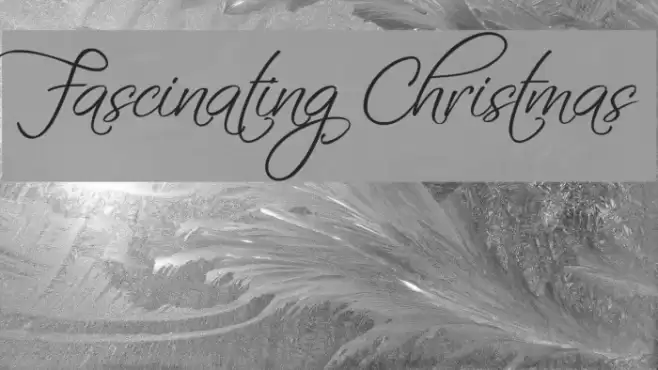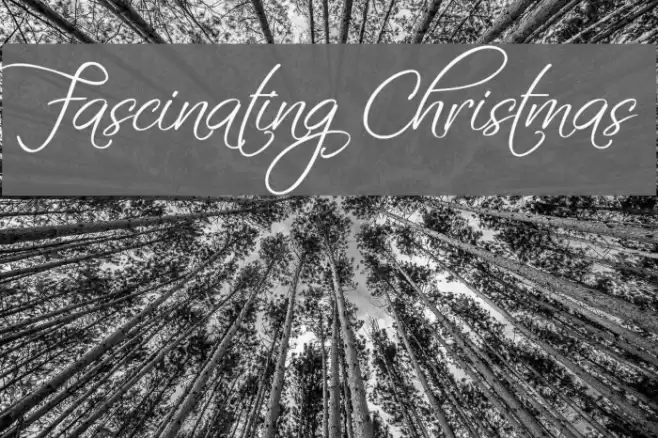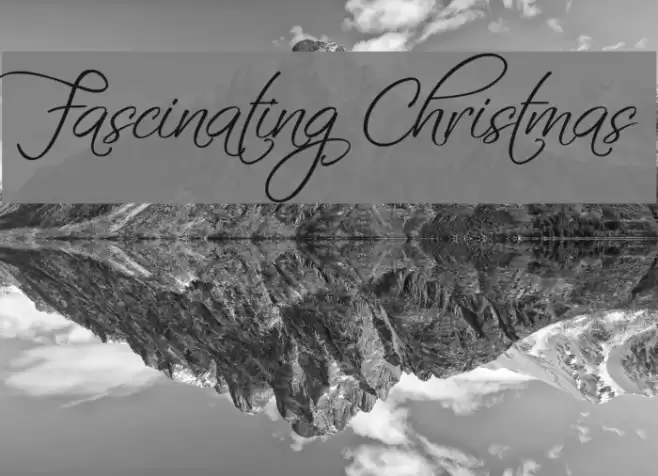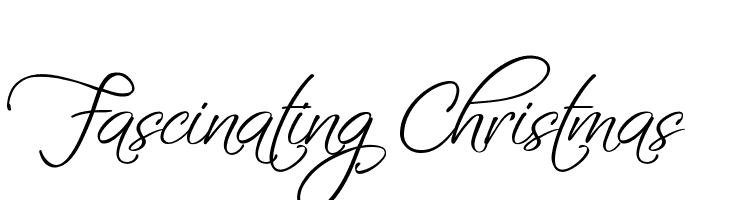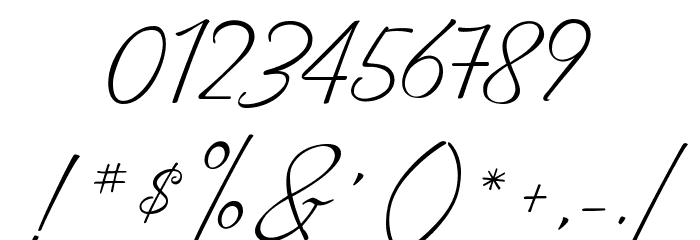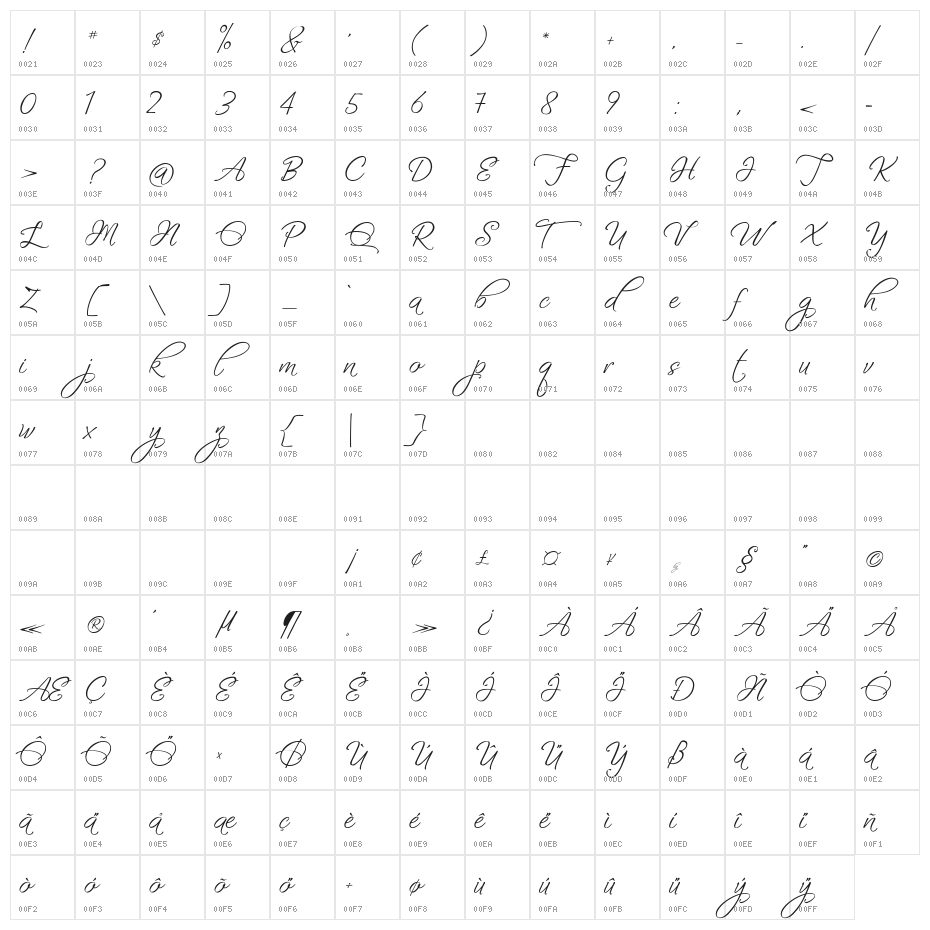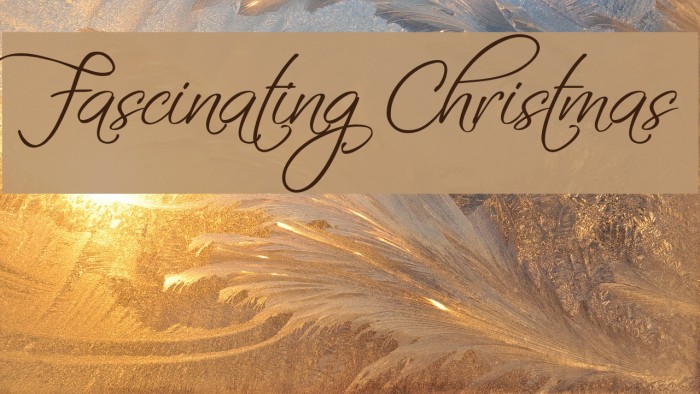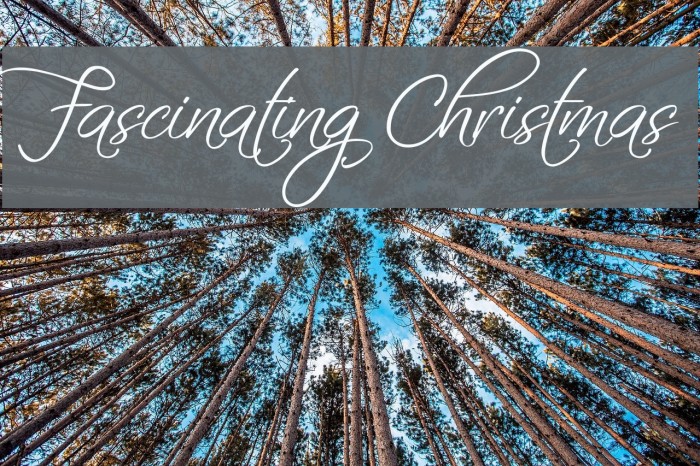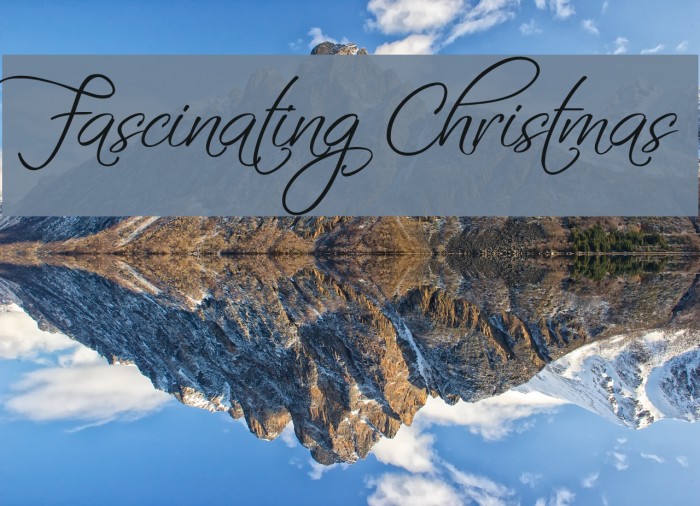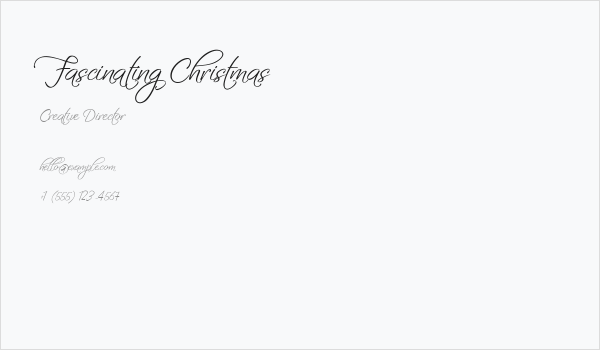
Fascinating Christmas Font
Fascinating Christmas Description
This elegant script font features flowing, cursive letters with a sophisticated flair. The uppercase letters are ornate, with sweeping ascenders and descenders that create a sense of movement and grace. The lowercase letters maintain a consistent style, complementing the uppercase with their own delicate curves and loops. The numerals are designed to match the overall aesthetic, with a slight slant and decorative elements. Special characters are included, each crafted with the same attention to detail, making this font versatile for various design needs. The overall appearance is both classic and festive, ideal for creating a warm, inviting atmosphere.
An elegant, flowing script font with ornate, cursive letters and a festive feel from Uncategorized fonts.
- Proposed Projects: Ideal for holiday cards, wedding invitations, elegant branding, and festive event posters.
- Use Case: Headlines, Invitations, Logos